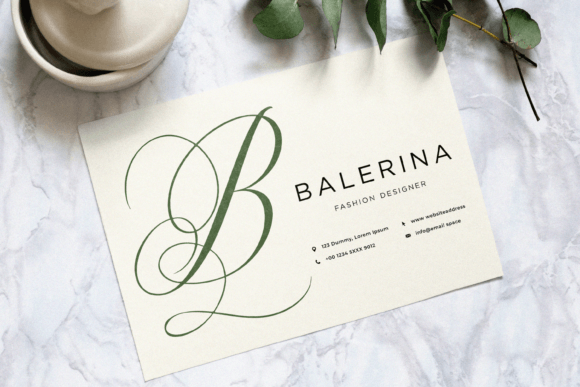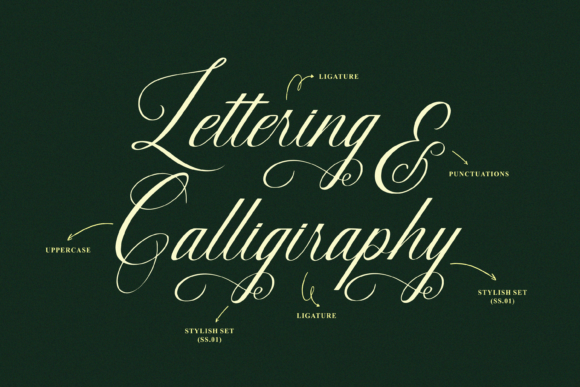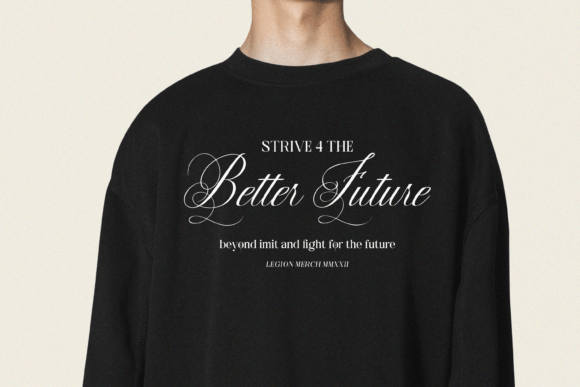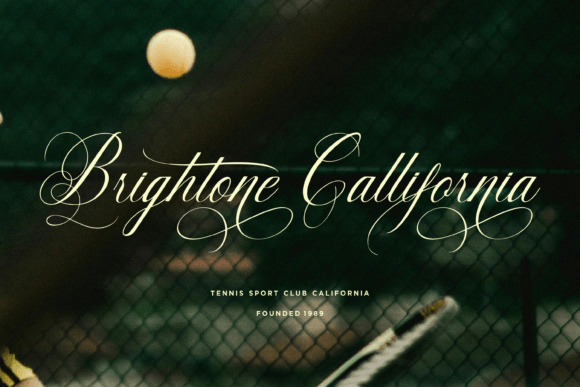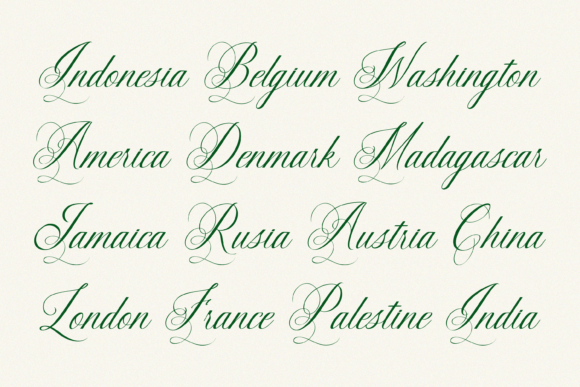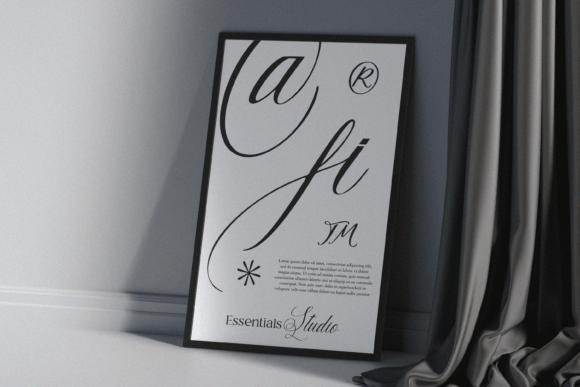
Introduction to Intrapersonal Font
Have you ever found yourself lost in a sea of design possibilities, yearning for the perfect font to bring your creative project to life? I know I have. It’s that moment of pure excitement when you stumble upon a font that not only speaks to your vision but also elevates your entire design. For designers, finding the right font can be a game-changer, setting the tone for a high-quality and visually stunning outcome.
That’s where Intrapersonal Font comes in – a beautiful script font designed by Essentials Studio. With its elegant and sophisticated design, Intrapersonal Font is perfect for branding, logo design, wedding invites, and even product packaging. What sets it apart is its versatility and unique touch, making it a valuable addition to any design resource. And the best part? You can download it for free, giving you the freedom to experiment and find the perfect fit for your creative project.
Key Features of Intrapersonal Font
- High-quality design: Intrapersonal Font is a meticulously crafted typeface, perfect for adding a touch of sophistication to your creative project.
- Transparent background: This font features a transparent background, making it ideal for use on top of images or videos.
- Large character set: Intrapersonal Font includes a comprehensive character set, covering a wide range of languages and characters.
- High-resolution design: With a resolution of 300 DPI, this font is suitable for use in high-quality print projects and digital designs.
- Unique characteristics: The Intrapersonal Font features a distinctive, hand-drawn aesthetic, making it a standout design resource for creative projects.
Honest Review: Intrapersonal Font
I recently had the opportunity to work with the Intrapersonal Font, and I must say it’s a high-quality addition to any design project. The transparent background makes it incredibly versatile, allowing for seamless integration into any creative project.
Here are some of the things that worked well for me:
- ✨ High-quality typography that looks great on any device
- ✨ Extensive character set that covers most languages
- ⚠️ Limited font weights, which may not be suitable for complex designs
- ⚠️ Not all devices may display the font correctly, so be sure to test thoroughly
Overall, I’m impressed with the Intrapersonal Font. It’s a great design resource that can elevate any creative project. While it may have some limitations, the benefits far outweigh the drawbacks. If you’re looking for a high-quality, free font to add to your design arsenal, I highly recommend giving it a try.
How to Use Intrapersonal Font
The Intrapersonal Font is a unique and high-quality design resource ideal for creative projects. With its transparent background, it can be easily integrated into various design platforms.
Tips for Getting the Most Out of Intrapersonal Font
To get the most out of the Intrapersonal Font, use it in conjunction with a high-quality design software and a transparent background. This will allow you to create a visually appealing design that stands out from the crowd.
The Intrapersonal Font is commonly used in creative projects, such as logos, brochures, and business cards. Its unique design and high-quality make it an ideal choice for designers looking to create a professional and eye-catching design.
Alternatives to Intrapersonal Font
The Great Vibes Font is a high-quality, handwritten font that is perfect for adding a touch of elegance to any creative project. It features a transparent background and is available for free download. When to use: Use Great Vibes Font for designs that require a personal and creative touch, such as invitations, menus, or social media graphics.
Comparison to Intrapersonal Font: While both fonts have a unique, handwritten feel, Great Vibes Font is more elegant and refined, making it suitable for more formal designs. Intrapersonal Font, on the other hand, has a more playful and casual tone.
Q: Does the Intrapersonal Font have a transparent background?
Yes, the Intrapersonal Font has a transparent background, making it ideal for use on top of images or other design elements. The font’s transparent background also allows for easy layering and blending with other design elements, giving you more creative control over your design projects.